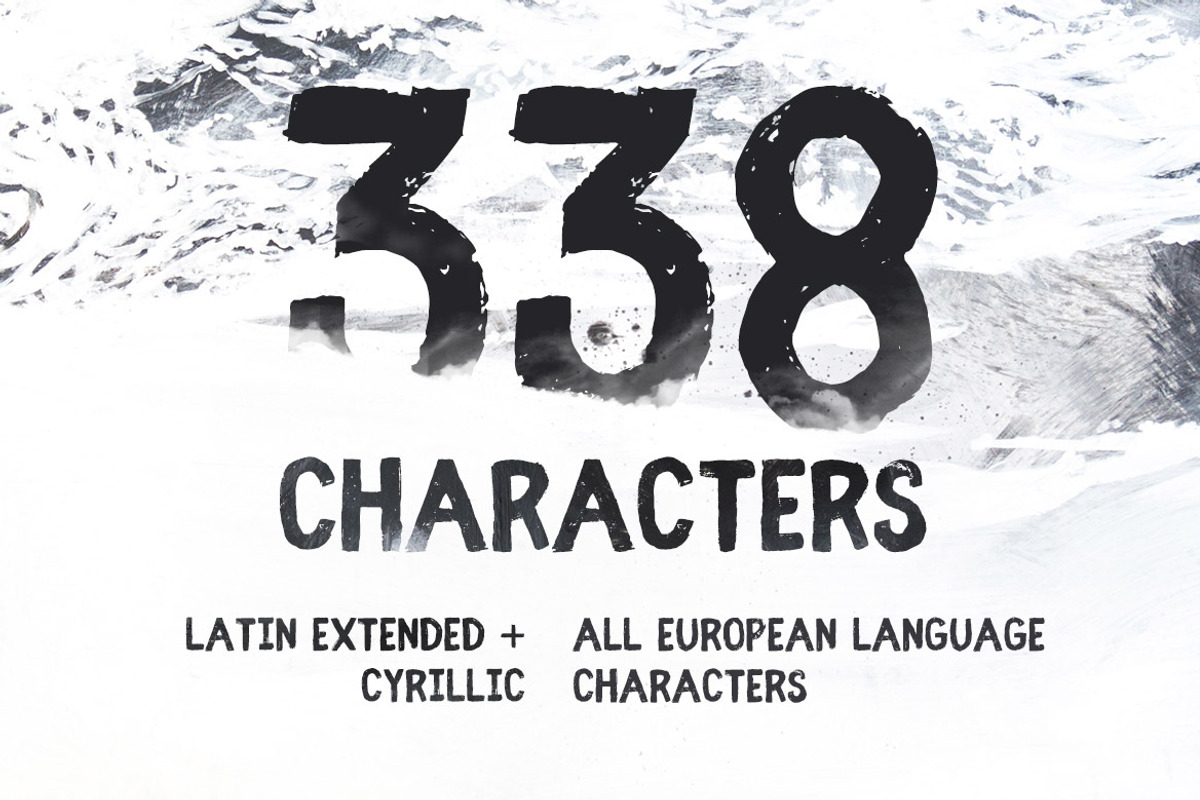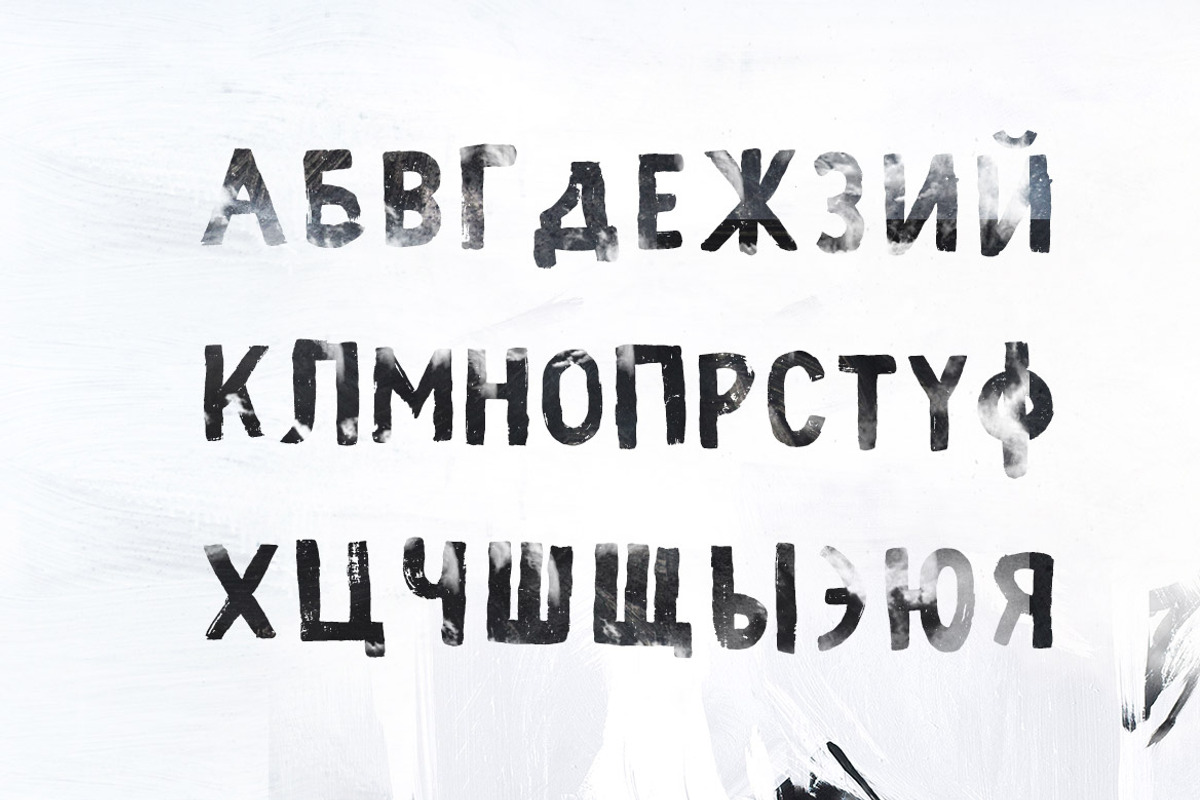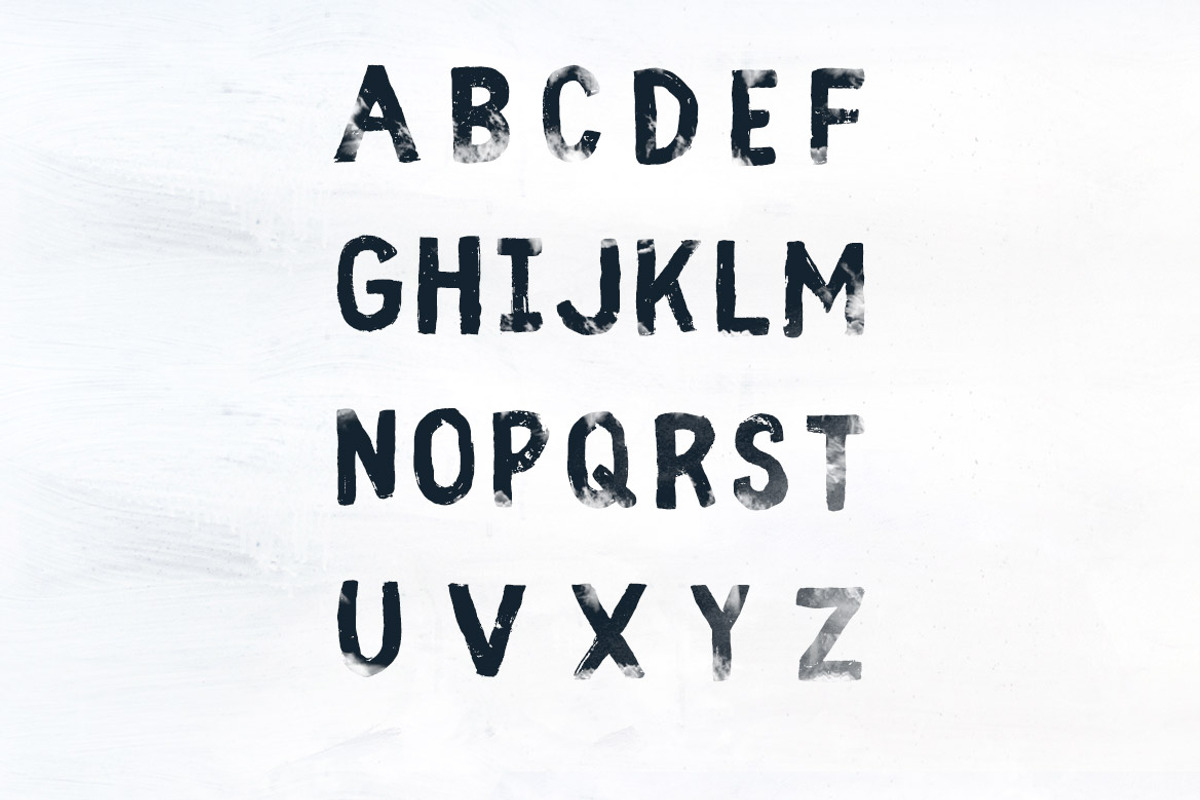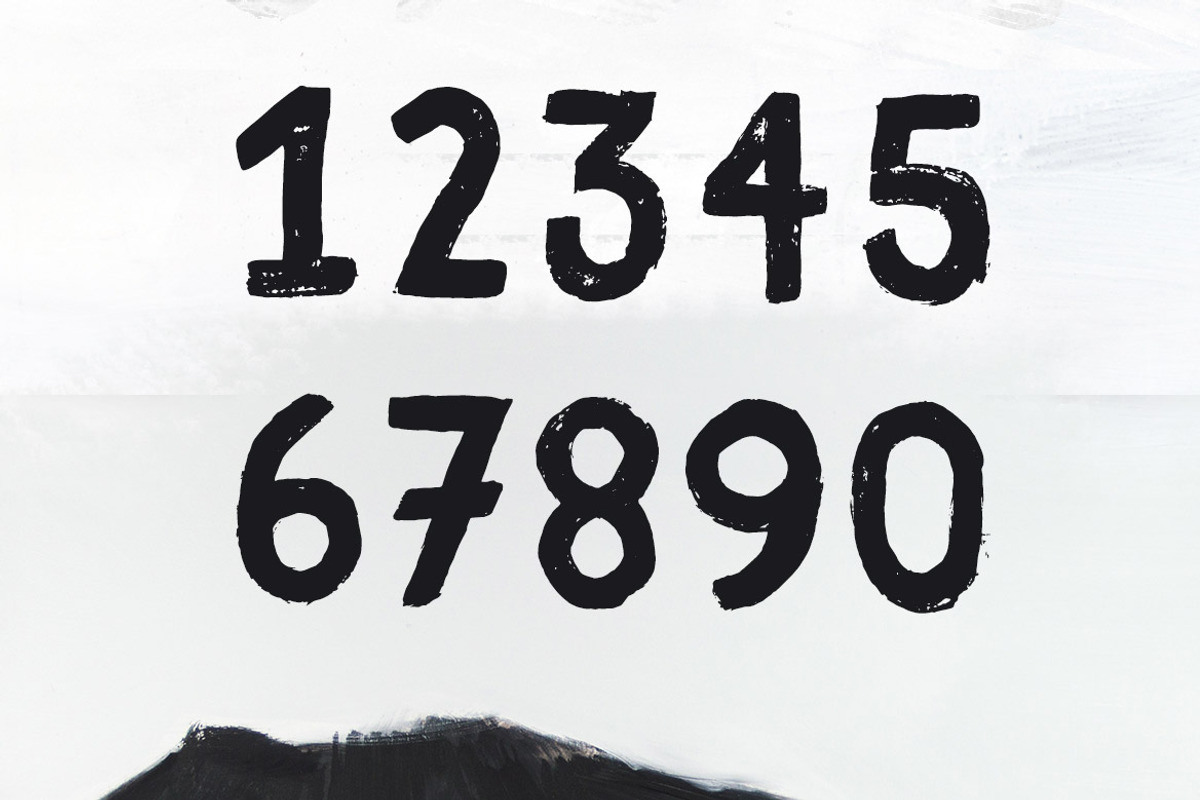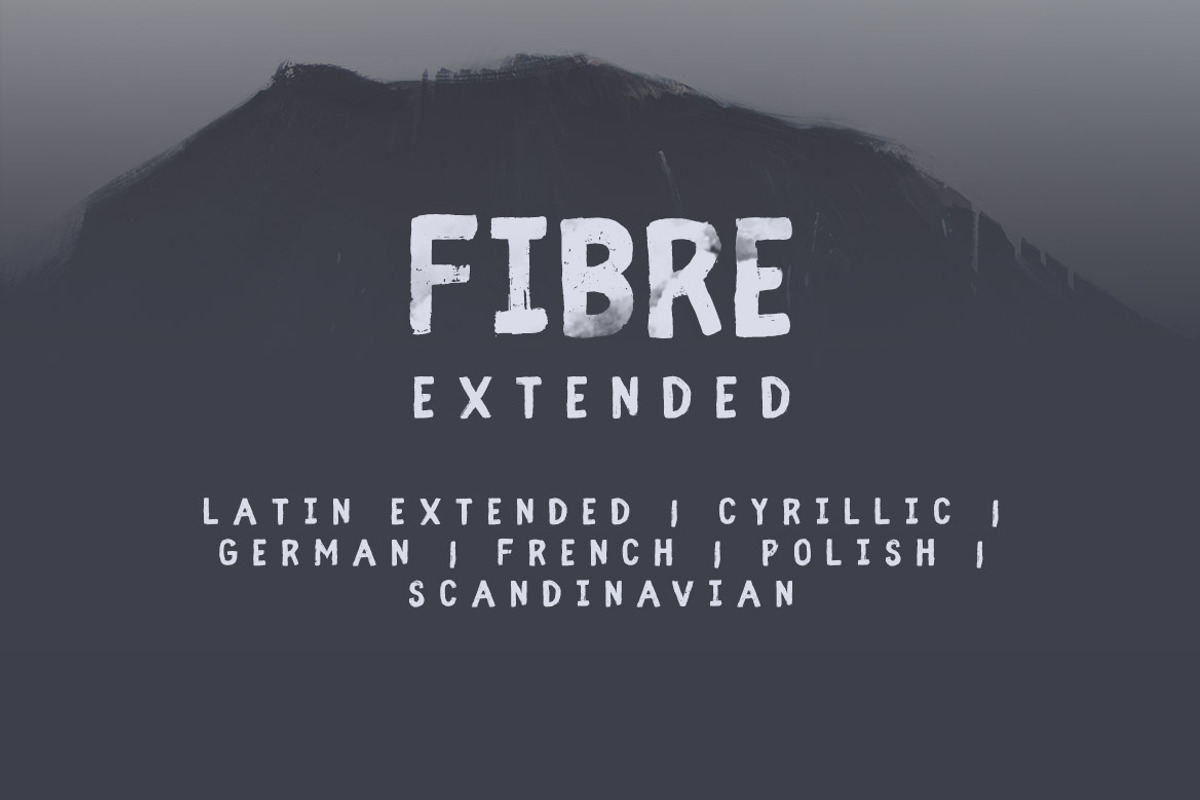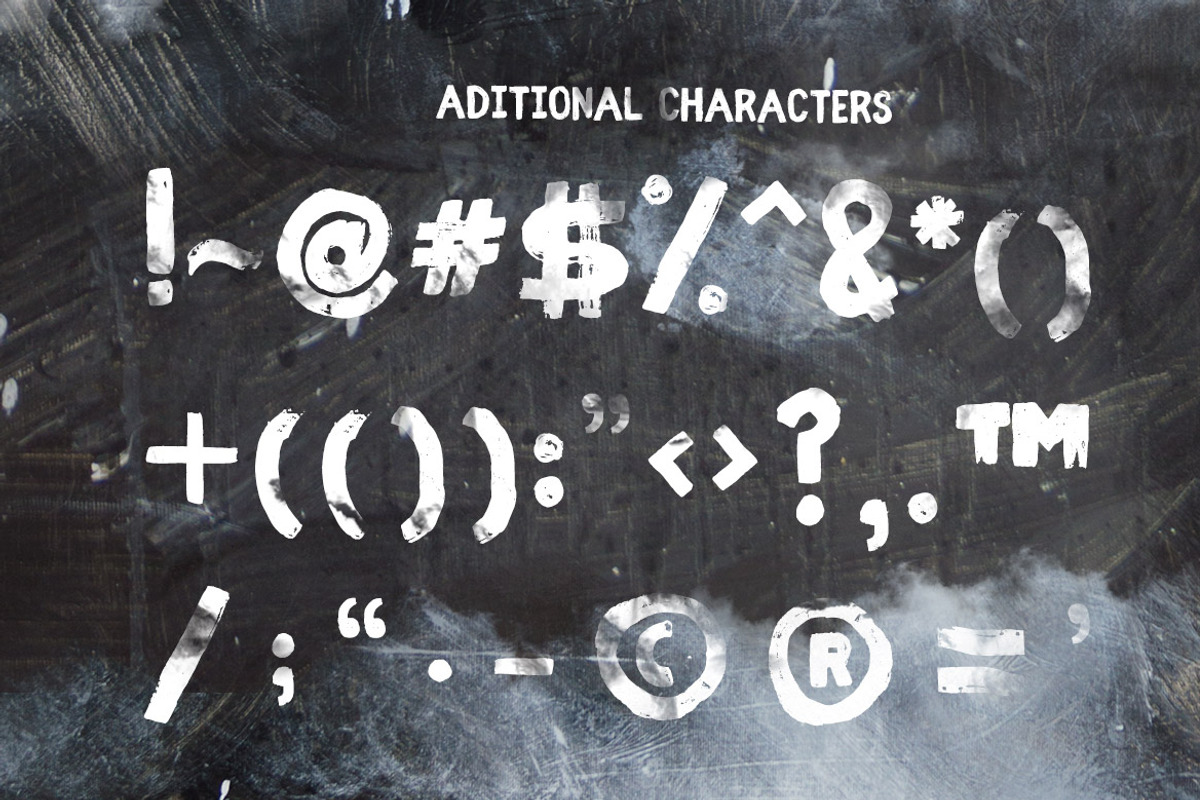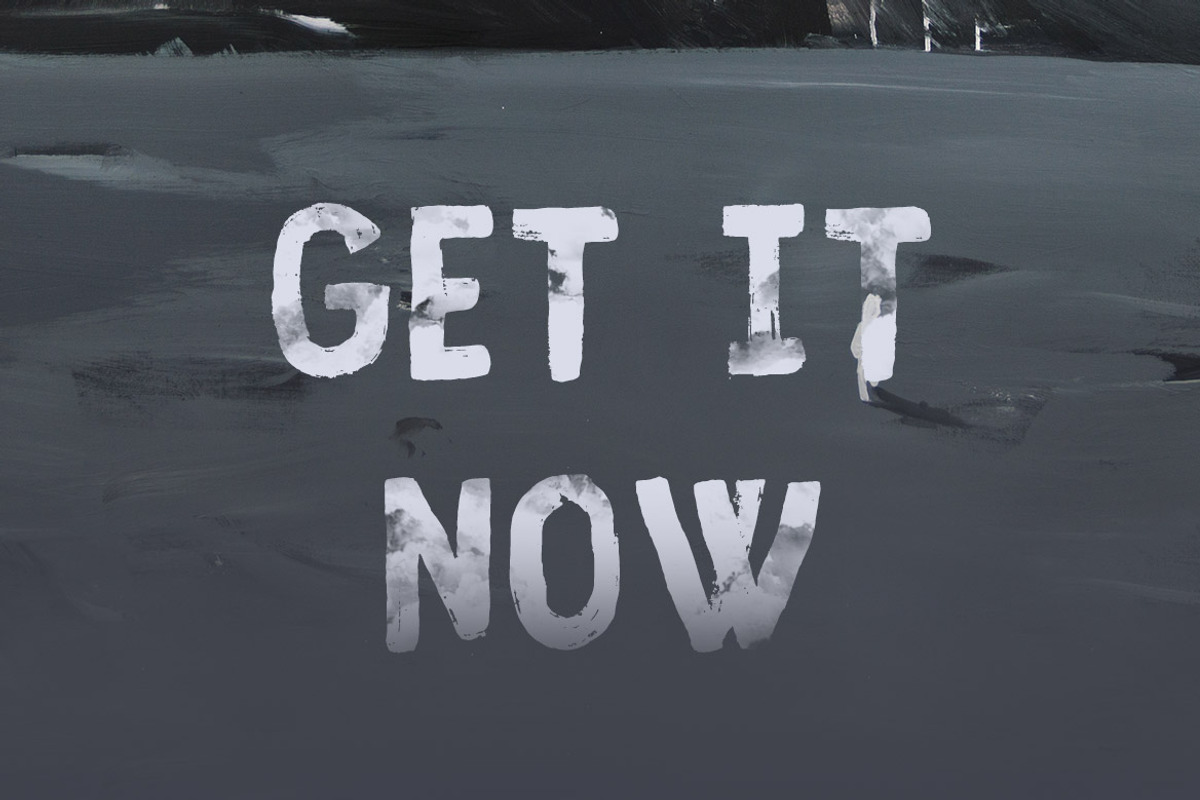
Fibre Extended Vintage Font
Fibre Extended Vintage Font by Wild Ones is a font selected for branding, posters, packaging, typography.
- It has been updated and now containsso much more leters , cyrillic letters and EU country based glyphs.
- About 340 glyphs make the new and more fresh handmade typeface, all the basic characters are unique and not one has the same noise.
- The kerning and font metricks are designed to suit the best reading experience.
- Fibre Vintage Full Bold
Fibre Extended Vintage Font by Wild Ones fits naturally into Branding, posters, packaging, typography.